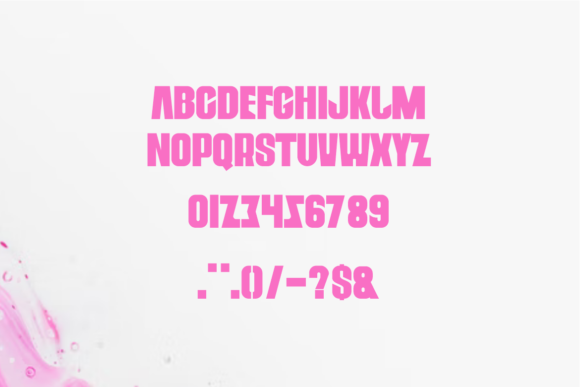
Unleash Your Creativity with Godnes Font
Have you ever stared at a blank page, trying to bring your design idea to life, only to be overwhelmed by the countless font options available? As a designer, you know how crucial the right font can be in setting the tone for your project. That’s where Godnes Font comes in – an elegant and modern sans serif font designed to elevate your designs to the next level.
With its minimalist and clean vibe, Godnes Font is perfect for a wide range of designs, from book covers and magazines to social media posts and invitations. Its versatility and sophistication make it an invaluable asset for designers looking to add a touch of sophistication to their work. Whether you’re a seasoned pro or just starting out, Godnes Font is sure to inspire your creativity and take your designs to new heights.
Godnes Font Key Features
- Font Family: Godnes is a sans-serif font family.
- Size: The font family includes various weights, ranging from Extra Light to Extra Bold.
- Unique Characteristics: Godnes features a clean, modern design with a focus on legibility and readability, making it suitable for a wide range of applications, including digital and print media.
Godnes Font Review
When I first laid eyes on the Godnes Font, I was struck by its unique, hand-drawn aesthetic. ✨ The font’s quirky charm and playful feel make it perfect for creative projects that need a bit of personality.
Here are some of the things that I think work well with Godnes Font:
- Expressive letterforms: Each character has its own distinct feel, giving your text a handcrafted look.
- Fun and whimsical: The font is perfect for projects that need a touch of humor or playfulness.
- Highly legible: Despite its quirky nature, Godnes Font is surprisingly easy to read.
- Limited language support: Godnes Font may not be the best choice for projects that require a wide range of languages.
- May not be suitable for formal projects: The font’s playful nature may not be suitable for formal or professional projects.
Overall, I think Godnes Font is a great choice for creative projects that need a bit of personality. While it may not be the best choice for every project, it’s a fun and expressive font that’s sure to add some visual interest to your design.
Tips for Getting the Most Out of Godnes Font
Godnes Font is a versatile font that can be used in a variety of design contexts. Here are a few tips for getting the most out of it:
1. Use Godnes Font for headings and titles to add a touch of elegance and sophistication.
2. Experiment with different font sizes and styles to create visual interest and hierarchy.
3. Use Godnes Font in combination with other fonts to create a unique and eye-catching design.